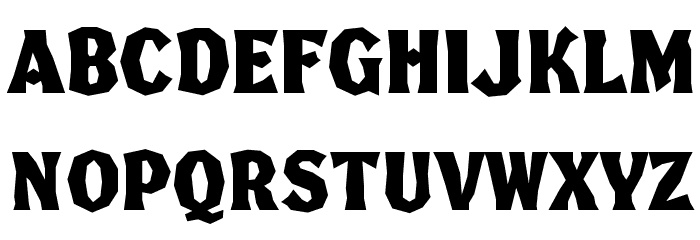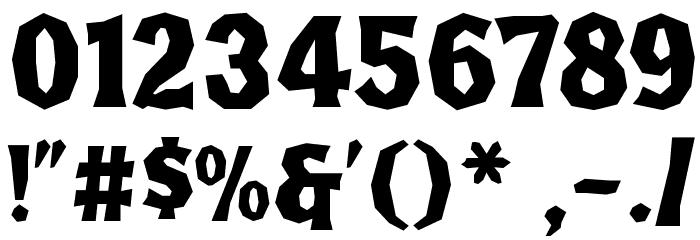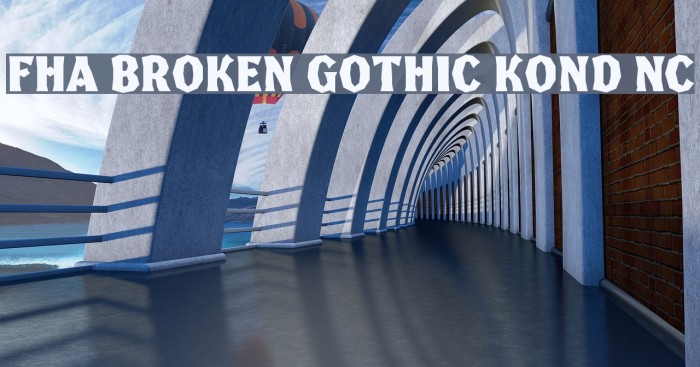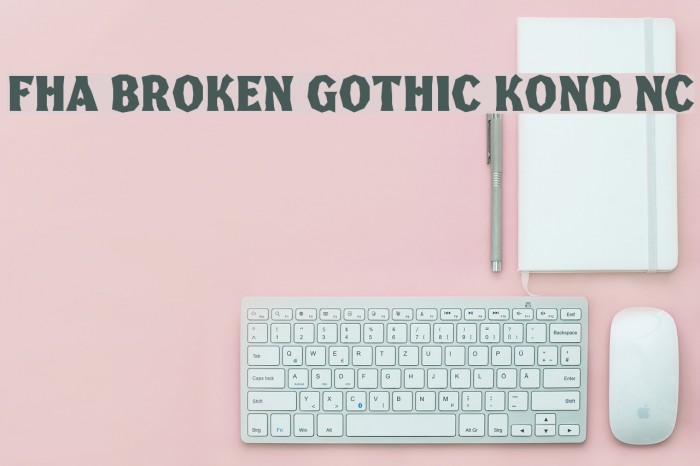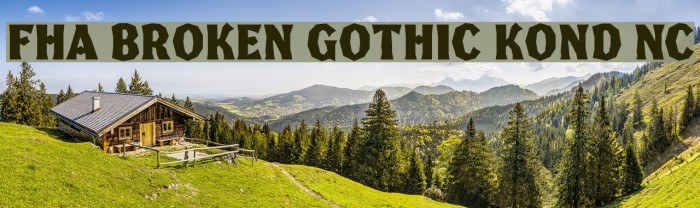
FHA Broken Gothic Kond NC Font
This font features a bold and striking design with a distinctly Gothic influence. The characters are angular and sharp, with a broken, fragmented appearance that gives them a unique, edgy look. The uppercase letters are particularly prominent, with thick strokes and pointed edges that create a sense of drama and intensity. The numbers and special characters maintain this bold style, ensuring consistency across all elements. This font is ideal for projects that require a strong visual impact and a touch of historical or medieval flair.
A bold, Gothic-inspired font with angular, fragmented characters.
- Proposed Projects: Ideal for posters, album covers, branding for edgy or alternative products, and any design needing a dramatic, historical touch.